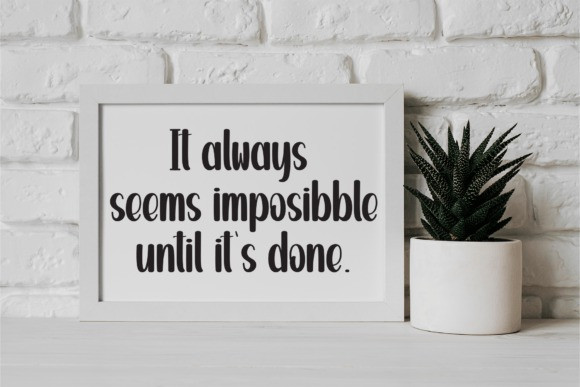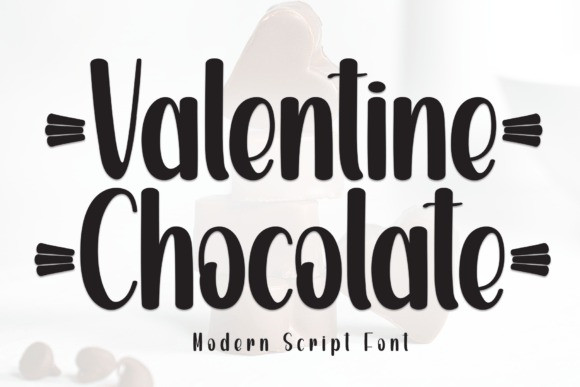
Valentine Chocolate Display Typeface
Valentine Chocolate Display Typeface is a flowing handwritten font, described by an elegant touch, perfect for your favorite projects. Fall in love with its incredibly distinct and timeless style and use it to create spectacular designs!